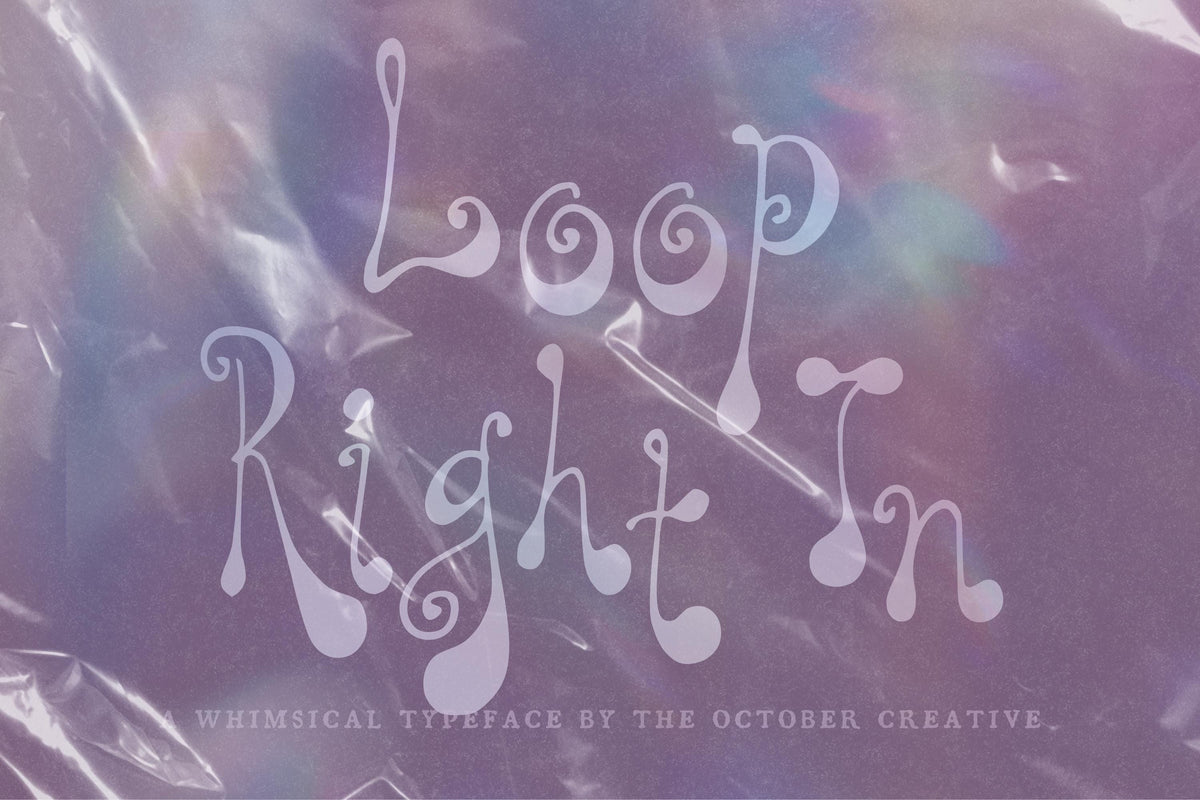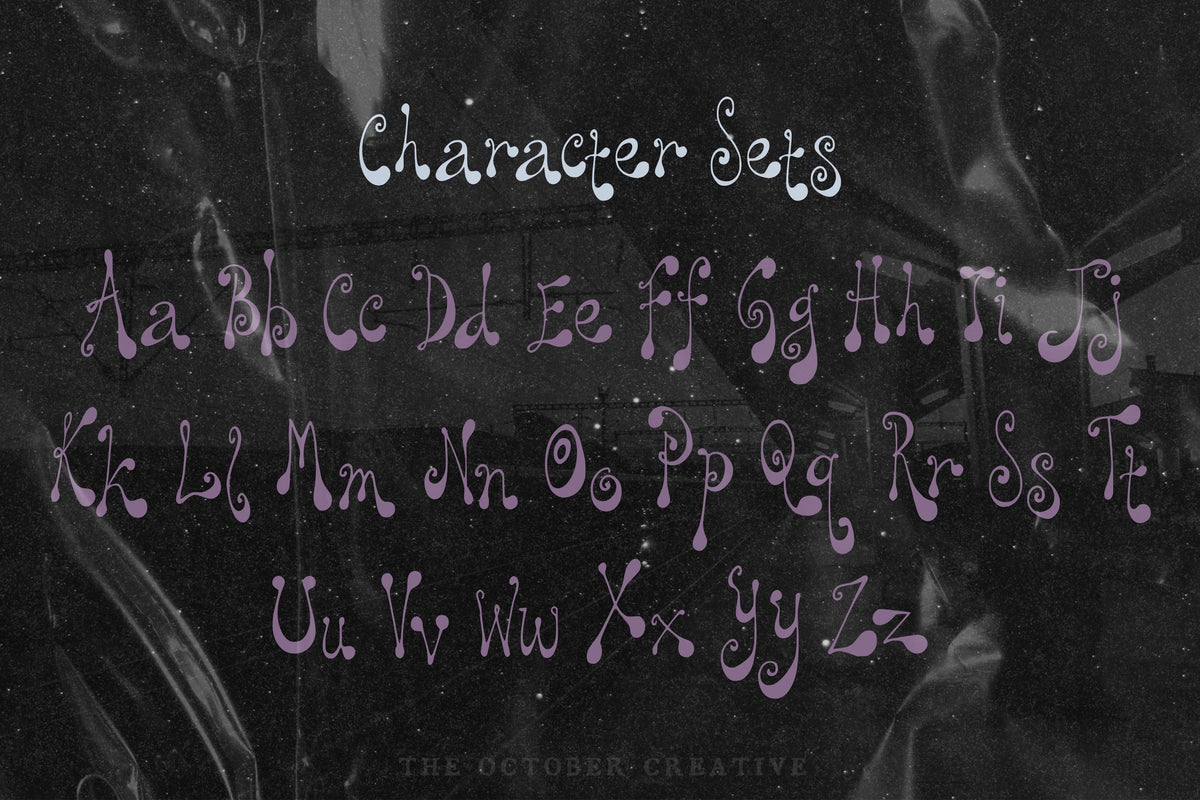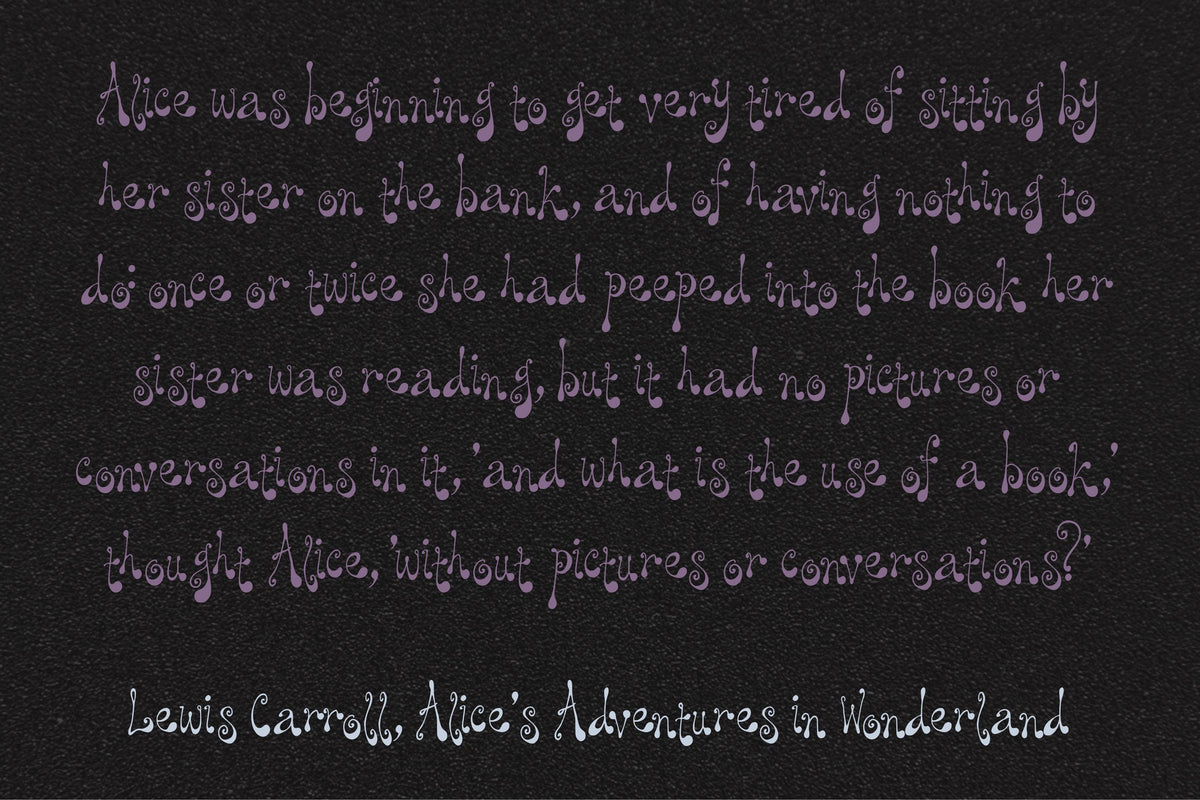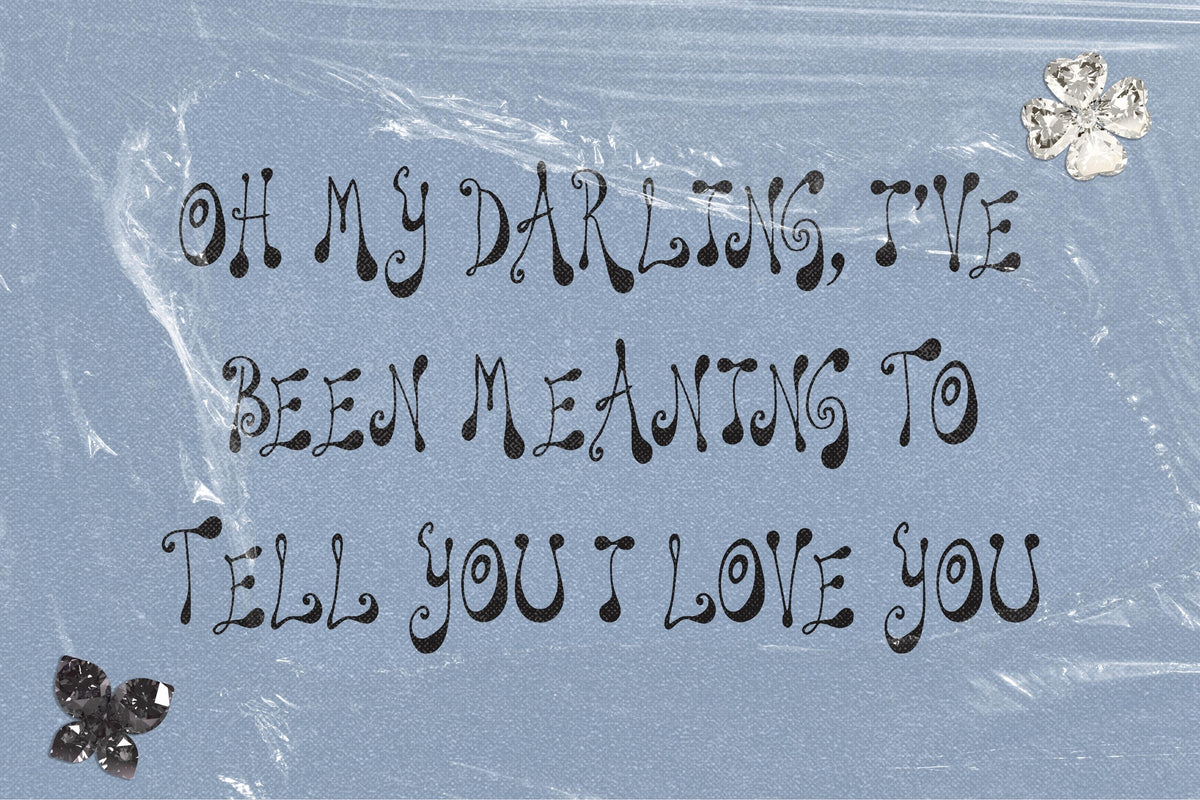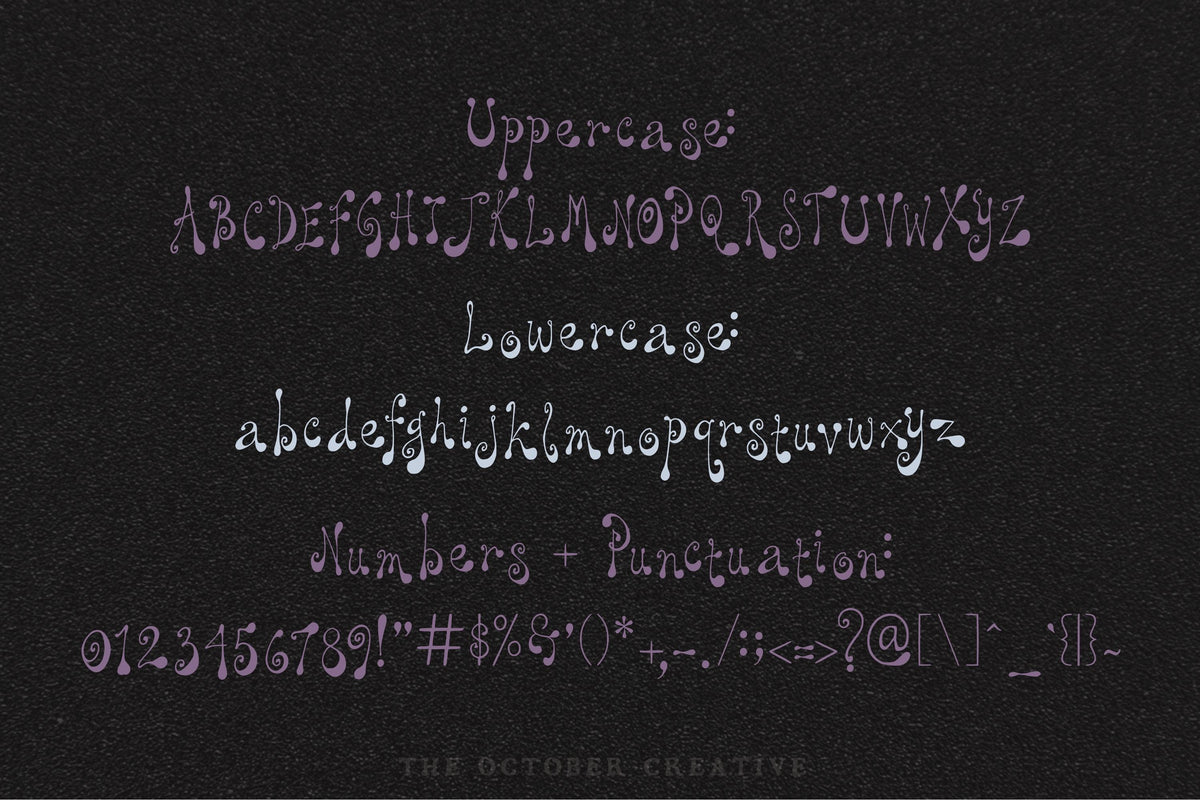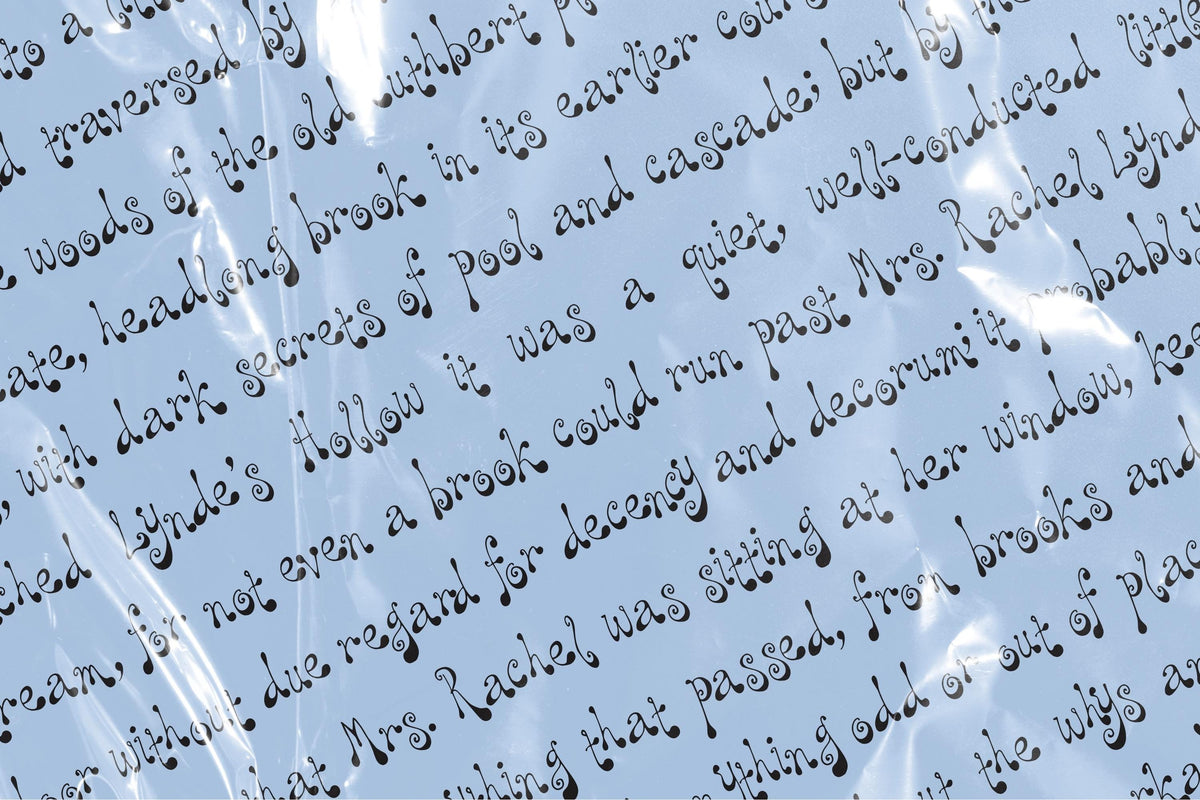
Loop Right In Font
Loop Right In makes a cheerful fuss of your words with fine loops, round dots, and a little bounce. Use it for craft labels, party favors, and cards for someone who appreciates a good curl as much as you do.